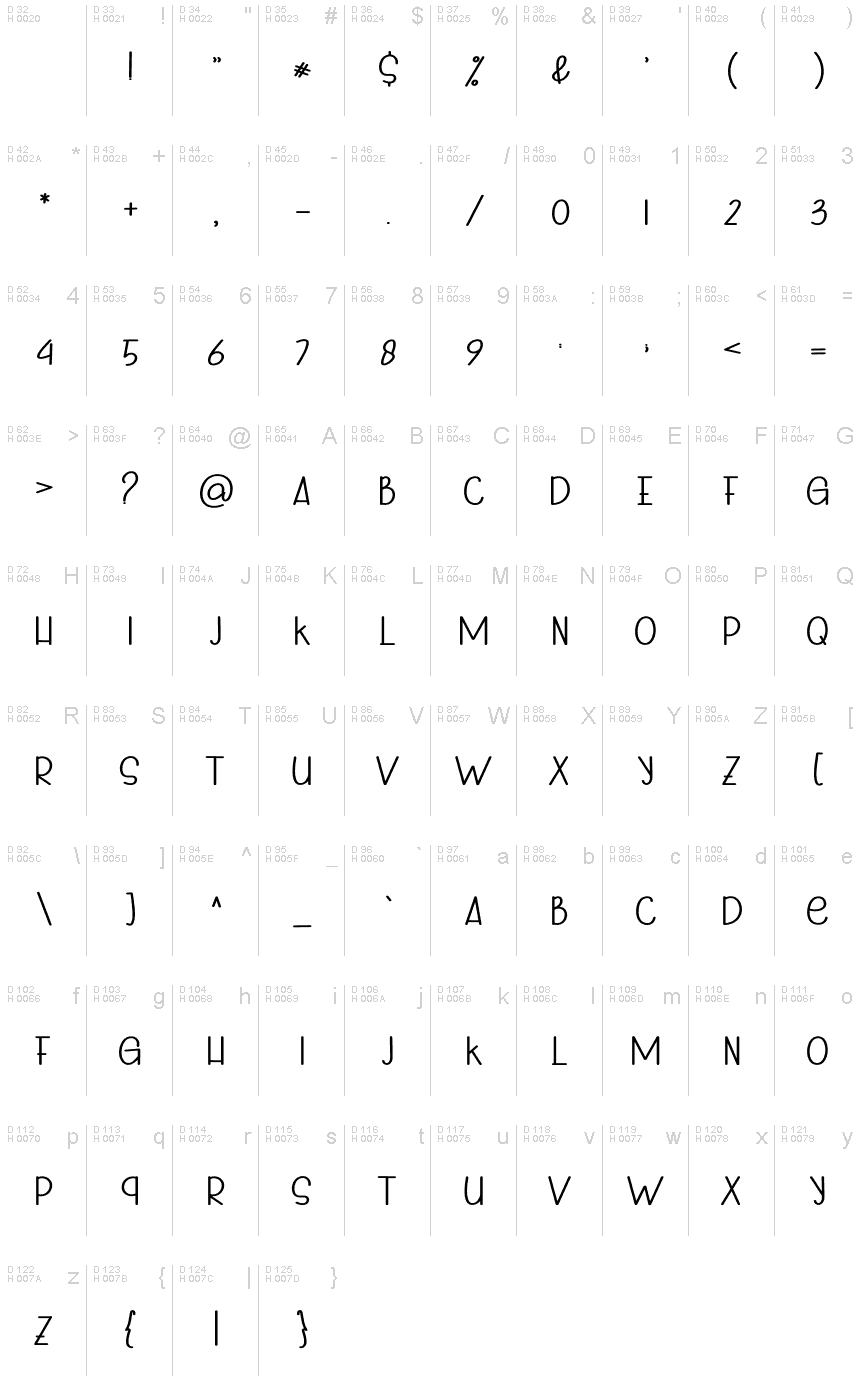
Winter Of Desember
Winter of Desember, designed by Etik Fatimah, is a semi-light font that brings the charming imperfections of handwritten script into the realm of digital typography. With its comic style flair, this typeface exudes a casual and friendly vibe that is both aesthetically pleasing and functionally expressive.
The stylistic quirks of Winter of Desember give it an approachable character, perfect for projects aiming to convey warmth and personality. Whether it's invigorating branding material, captivating social media graphics, or engaging children's book illustrations, this font's versatility allows it to adapt seamlessly to various creative contexts while maintaining its unique charm.
The fluidity of its letterforms paired with the playful comic touch makes Winter of Desember an excellent choice for designers seeking a typeface with both visual interest and readability. Its semi-light weight ensures that it remains unobtrusive yet distinctive enough to leave a lasting impression.